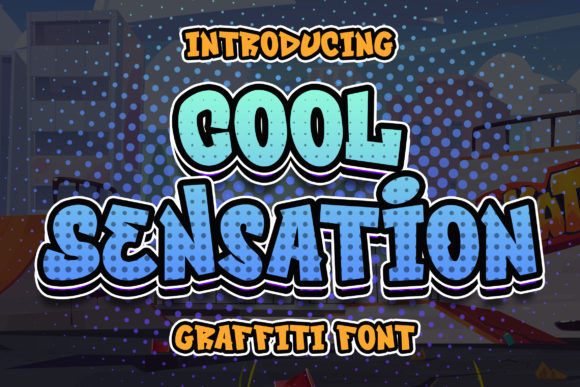
Introducing Cool Sensation Font - The Graffiti Masterpiece That Unleashes Your Creative Soul!
Prepare to be captivated by Cool Sensation, a graffiti display font that drips with urban energy and artistic flair. This freestyle typeface is a stroke of genius, exuding the raw and rebellious spirit of street art. With its one-of-a-kind characters, Cool Sensation empowers you to unleash your wildest creative visions and make a statement like no other.
Dive into the world of Cool Sensation and experience the thrill of crafting extraordinary designs that radiate personality. Whether you're a seasoned designer or just starting your creative journey, this font is your ultimate companion. Its versatility knows no bounds, seamlessly adapting to a myriad of projects, from eye-catching posters to captivating social media graphics.
With Cool Sensation at your fingertips, you'll effortlessly evoke the vibrant energy of the streets, transforming your designs into captivating works of art. Its dynamic and expressive characters dance across the screen, capturing attention and leaving a lasting impression.
Embrace the freedom and individuality of Cool Sensation and watch your ideas come alive. Let your imagination soar as you explore the endless possibilities this remarkable font offers. Join the ranks of creative pioneers who have discovered the power of Cool Sensation and unlock the gateway to exceptional design.